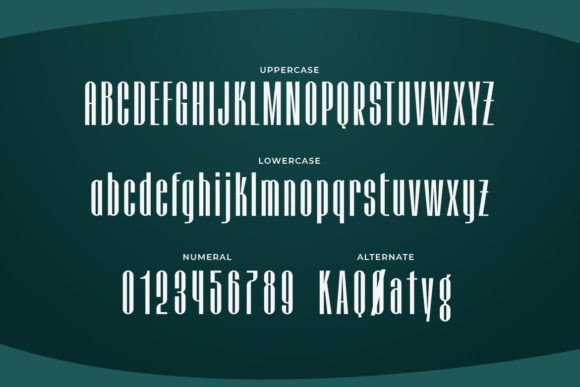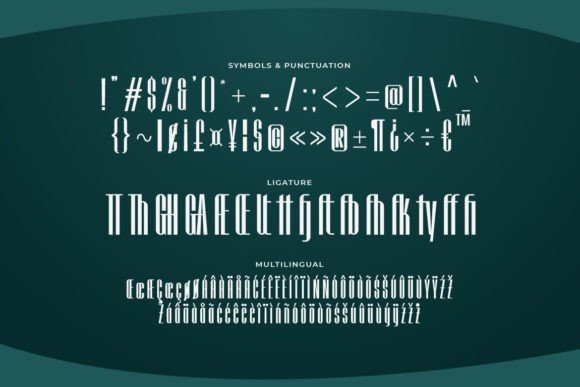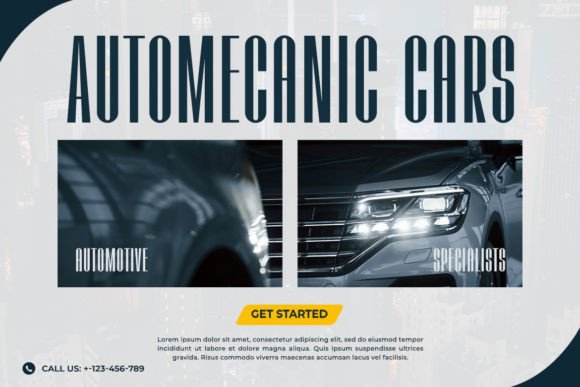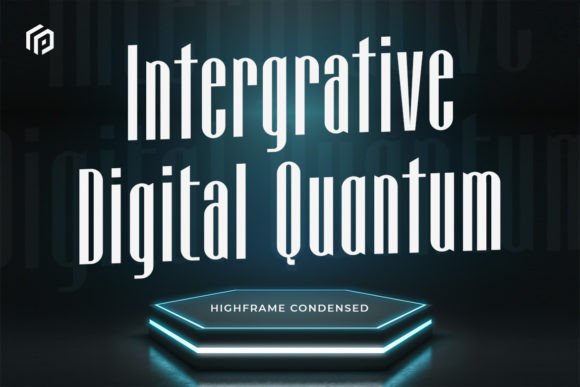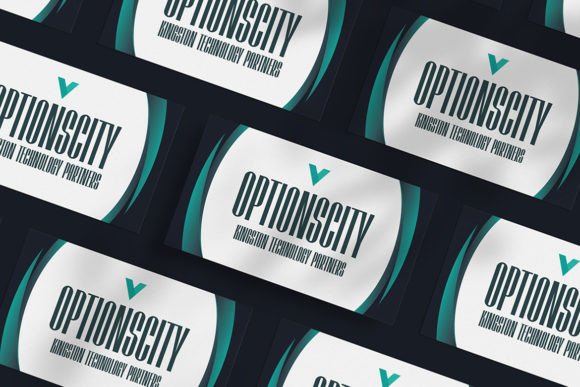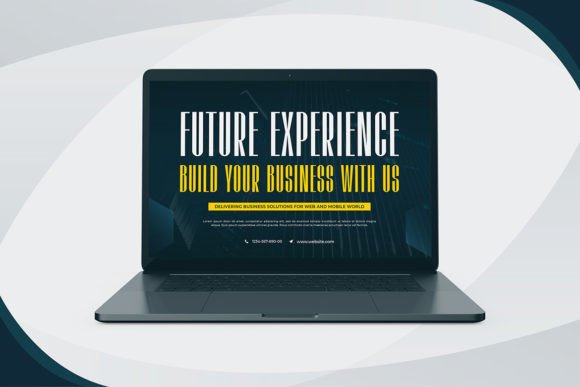
Unlocking Creative Potential with Highframe Font
Remember the moment when a single design element brought your entire project to life? For many of us, it’s that one special font that sets the tone for our creative vision. As designers, we’re constantly on the lookout for that perfect design resource to elevate our work. And, we’re excited to share with you the latest addition to your design arsenal – the Highframe Font.
This stylish condensed display font is more than just a pretty face; it’s a high-quality design tool that can be used in a variety of creative projects. Whether you’re working on a graphic design project or creating a social media campaign, the Highframe Font is the perfect addition to your design library. With its transparent background and sleek design, this font is sure to make your work stand out.
Key Features of Highframe Font
- High-quality design resource with a transparent background, ideal for creative projects requiring a touch of sophistication.
- Features a clean and modern aesthetic, making it perfect for use in logos, branding, and digital design.
- Includes a range of characters, including uppercase and lowercase letters, numbers, and punctuation marks, to support a variety of languages.
- Designed to be highly scalable, with a resolution of up to 1024 x 1024 pixels, making it suitable for use in large-scale designs.
- Comes in a single weight, making it easy to use in a variety of design contexts, from body text to headings.
Honest Review: Highframe Font
I recently had the opportunity to work with the Highframe Font, and I must say it’s been a game-changer for my design projects. This font is a high-quality resource that’s perfect for creative endeavors.
- ✨ Highly versatile – it’s suitable for a wide range of design projects, from logos to brochures.
- ✨ Transparent background – this feature makes it easy to customize and manipulate the font.
While the Highframe Font has its strengths, there are a few limitations to consider:
- ⚠️ Limited font styles – while it’s a great font, the options are somewhat limited compared to other fonts on the market.
- ⚠️ Not ideal for small text sizes – the font can appear blurry or difficult to read when used at very small sizes.
Overall, I’m thoroughly impressed with the Highframe Font. It’s a solid design resource that’s perfect for a wide range of creative projects. While it may not be perfect, it’s definitely worth considering for your next design endeavor.
The Highframe Font is versatile and can be used in a variety of creative projects, including:
Tips for Getting the Most Out of Highframe Font
To get the most out of the Highframe Font, try the following:
- Use the font in conjunction with other design elements, such as images and graphics.
- Adjust the font transparency to create a sense of depth and layering.
Can I customize the Highframe Font to fit my specific design needs?
Yes, the Highframe Font is highly customizable. It supports various font styles, including bold, italic, and bold-italic. You can also use font editing software to customize the font to fit your specific design needs. However, please note that making significant changes to the font may void the license agreement.